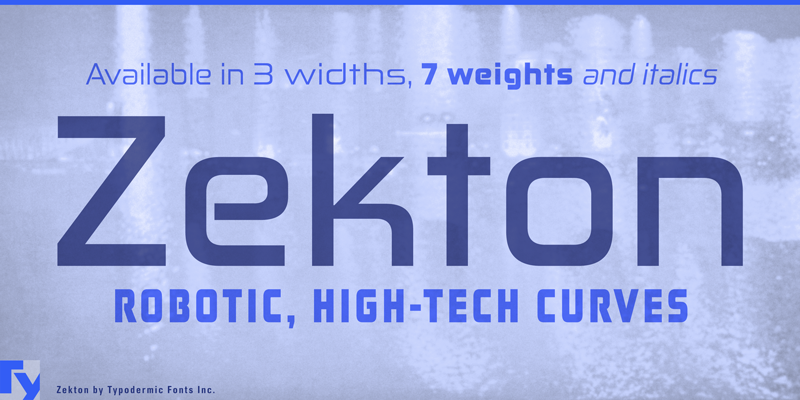
Preview and download Zekton Font. Created by Typodermic Fonts in Techno Sci-fi styles with 100% Free license.
Zekton was inspired by the futuristic fonts found on electronic gadgetry. Zekton imparts a serious, high-tech look by its rounded curves and even line widths. This font includes a license that allows free commercial use: sometimes referred to as a desktop license. This allows you to install the font on a computer and use it to create posters, web graphics, game graphics, t-shirts, videos, signs, logos and more. Read the license agreement for details. If you'd like to embed this font in an app, ebook, on the web or anything that's not covered by the desktop license agreement, visit the link below. You'll find distributors who offer different types of licenses or you can contact me for help. http://typodermicfonts.com/zekton/ This free font is part of a larger font family. Check out the rest of the family through the link above. |